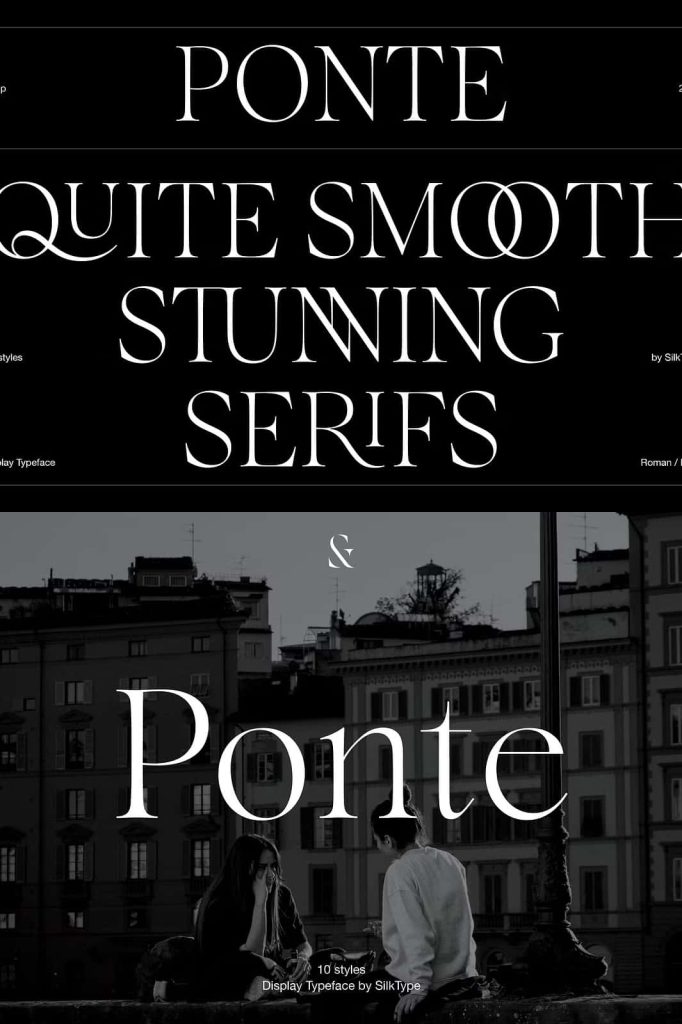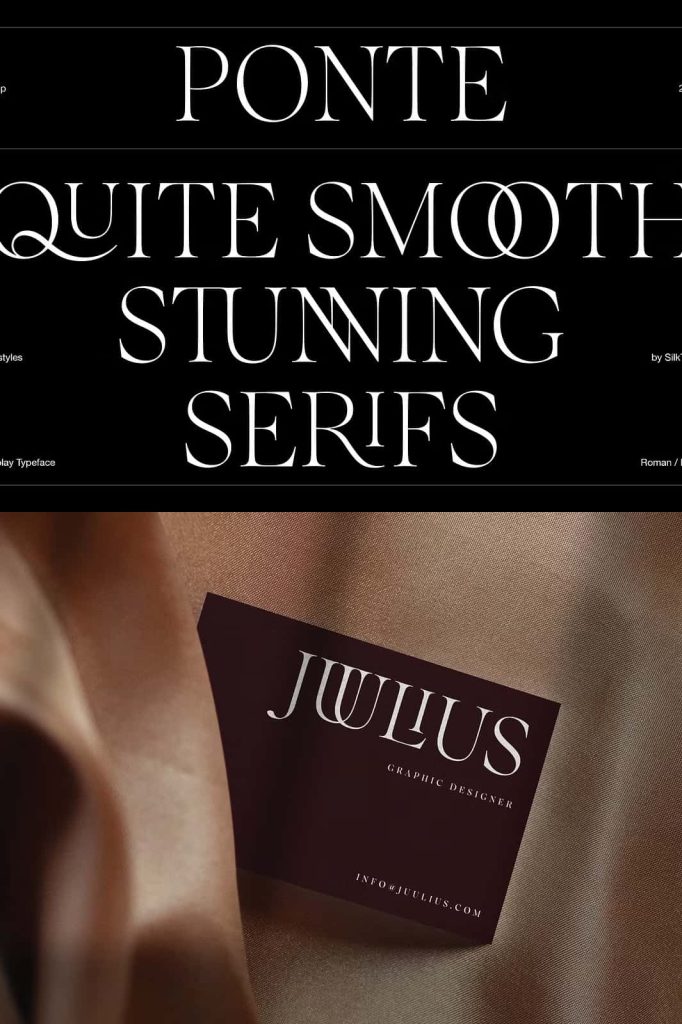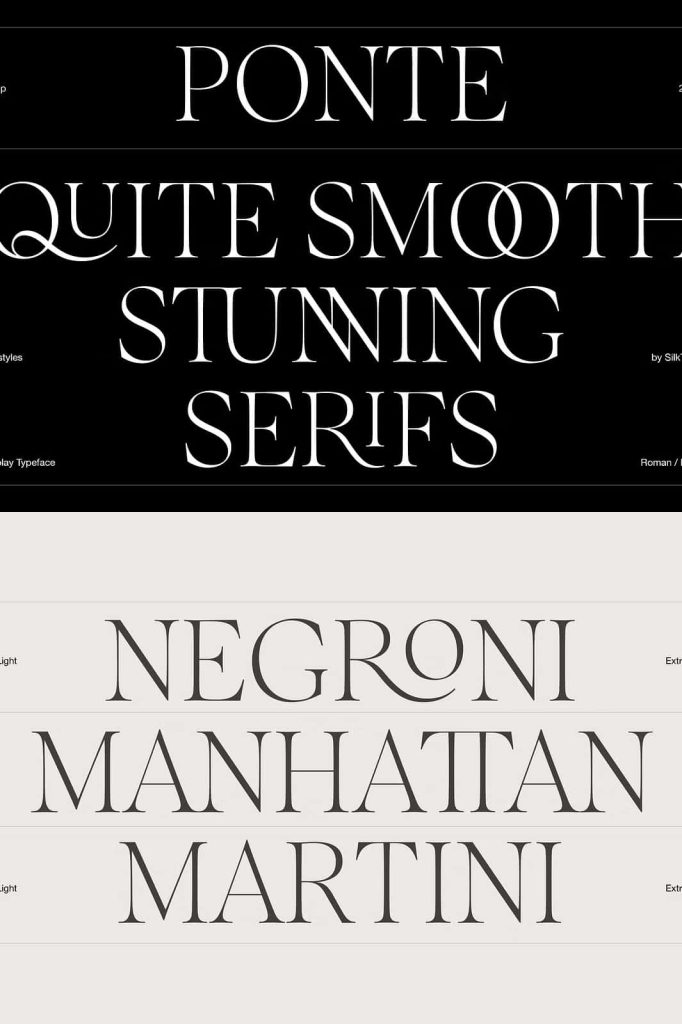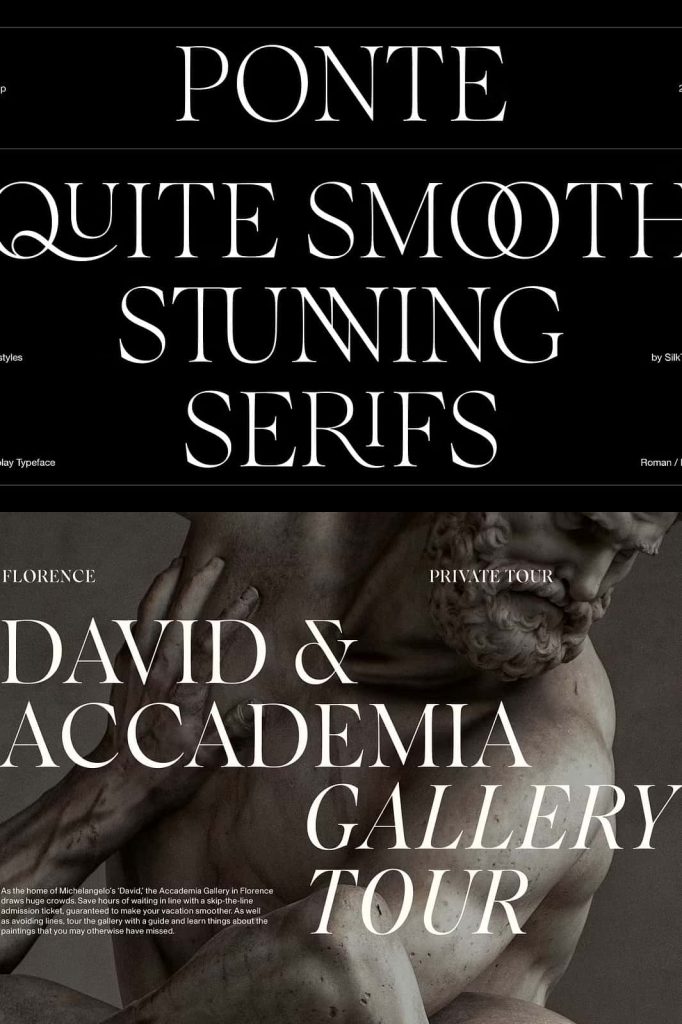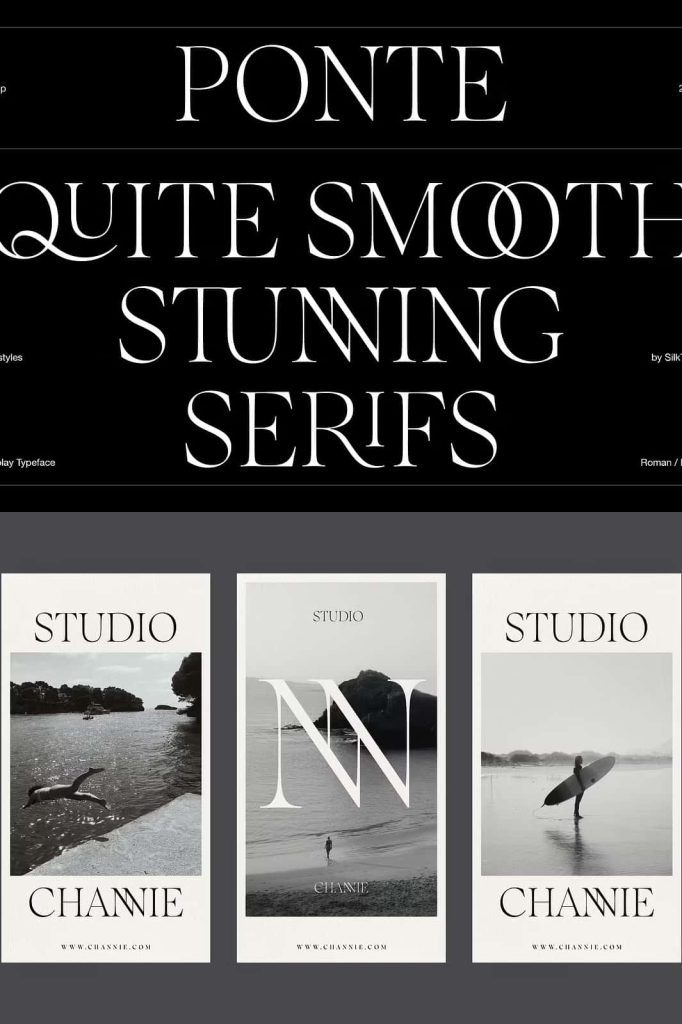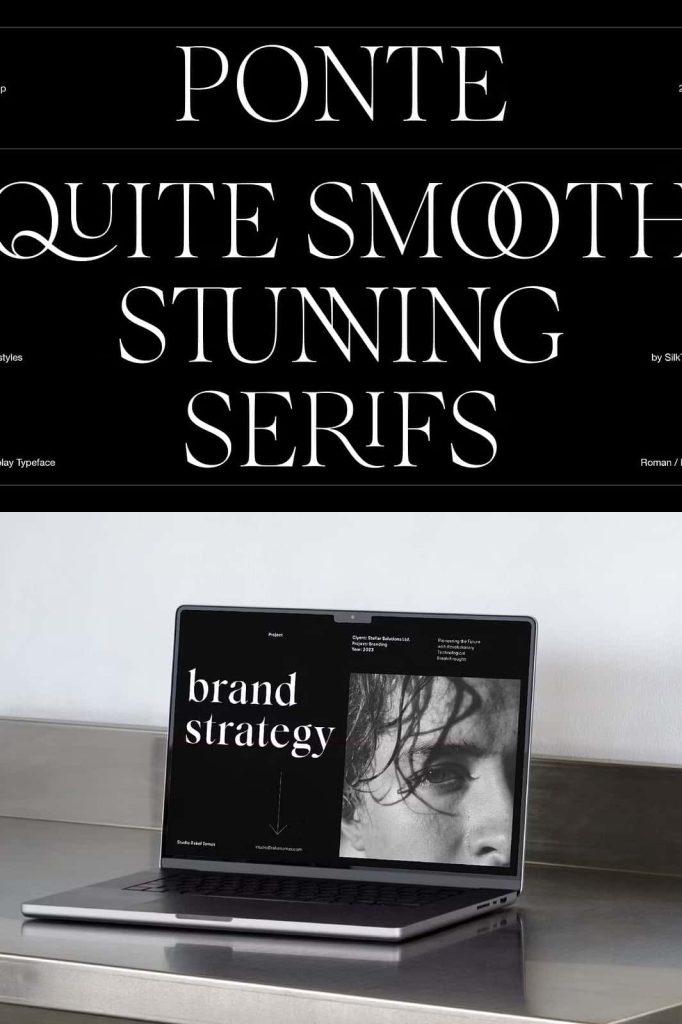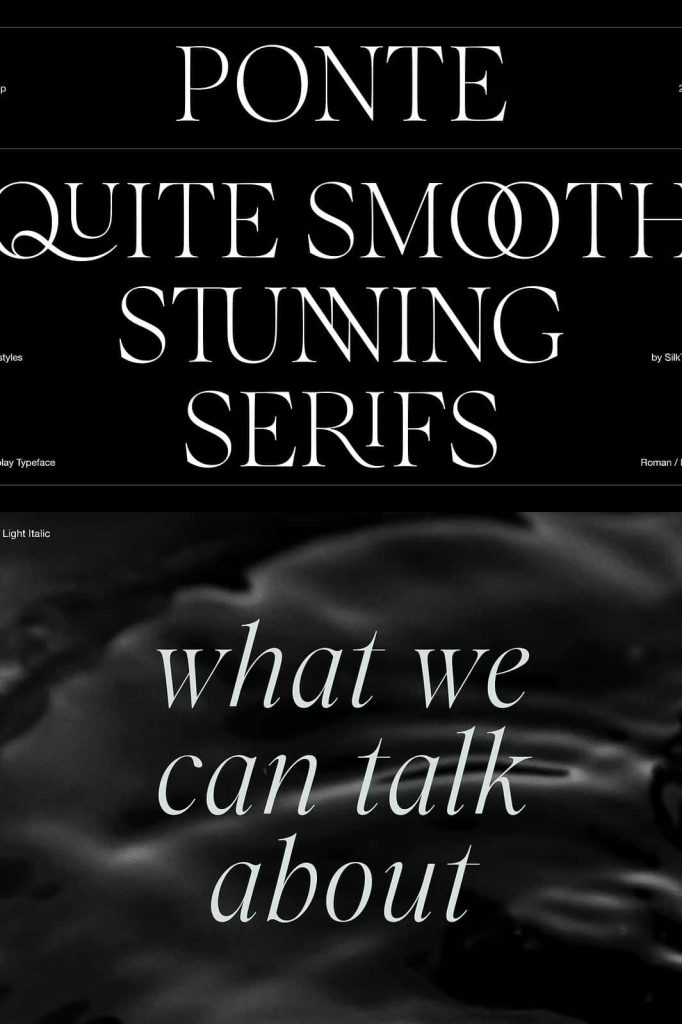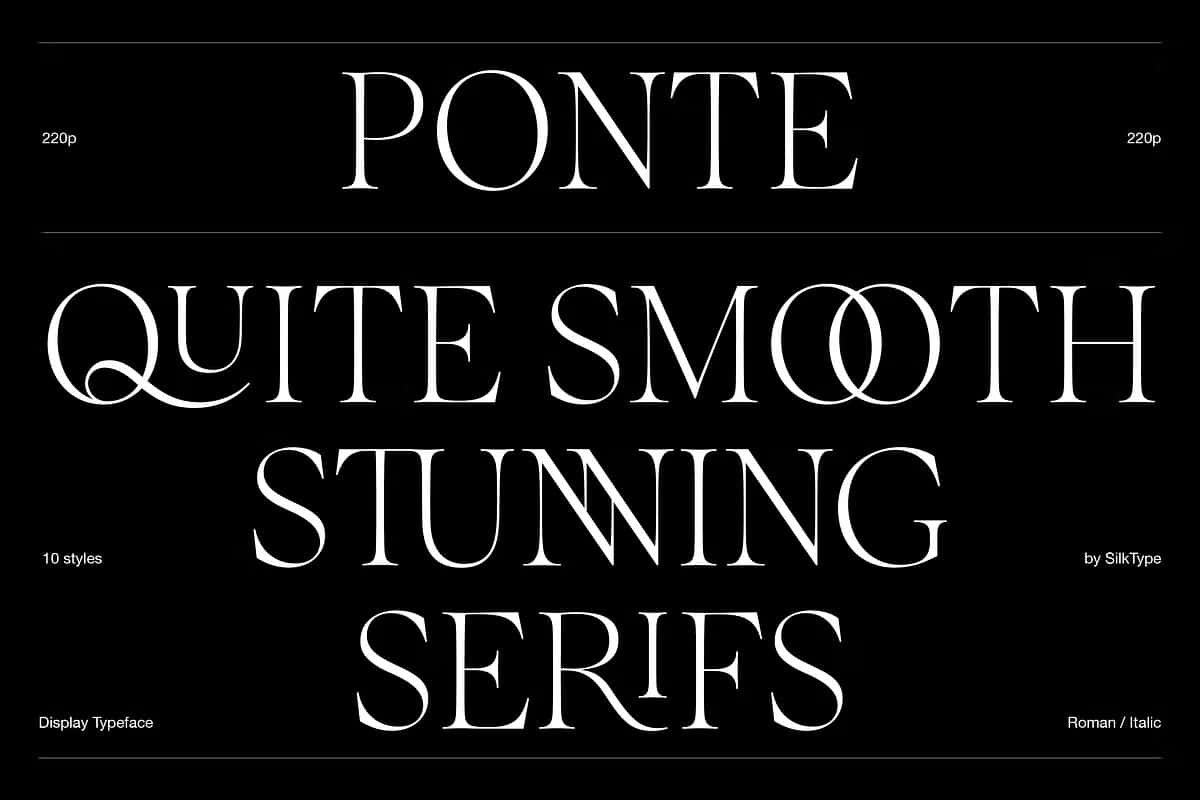
Ponte – 10 font family
Ponte: A High-Contrast Display Typeface Built for Impactful Headlines
Ponte is a refined high-contrast display typeface created to command attention and elevate visual communication. Designed with smooth, elegant serifs and carefully balanced proportions, Ponte brings clarity, drama, and sophistication to headline-driven layouts. This typeface is engineered to perform at display sizes, where contrast, detail, and expressive typography matter most.
High Contrast That Creates Visual Authority
At the core of Ponte’s identity lies its striking contrast between thick and thin strokes. This contrast delivers immediate visual impact, allowing headlines to stand out with confidence and precision. The dramatic stroke transitions add rhythm and movement to each word, guiding the reader’s eye and reinforcing hierarchy within the layout.
Despite its bold contrast, Ponte maintains excellent readability. The smooth serifs and carefully shaped counters prevent the letterforms from feeling sharp or overwhelming. This balance ensures that the typeface feels elegant rather than aggressive, making it suitable for sophisticated design applications.
Smooth Serifs with Refined Craftsmanship
Ponte’s serifs are designed with smooth curves and controlled details that soften the overall appearance. These serifs enhance the typeface’s elegance while supporting clarity at large sizes. The refined construction reflects a strong attention to typographic craftsmanship, ensuring that every character feels intentional and polished.
This smooth serif approach allows Ponte to bridge classic and contemporary design sensibilities. Designers can achieve a timeless look while still delivering a modern and expressive typographic voice.
Ten Styles Across Five Versatile Weights
Ponte offers ten total styles, combining roman and italic versions across five distinct weights. The range spans from extra light to bold, giving designers extensive control over emphasis, hierarchy, and tone. Each weight maintains consistent proportions and character, allowing seamless transitions within a single project.
The lighter weights bring elegance and restraint, ideal for refined headlines and editorial accents. The heavier weights deliver strength and authority, making them perfect for bold titles and statements. This range ensures that Ponte adapts easily to a variety of creative directions.
Roman and Italic Styles for Expressive Layouts
Both roman and italic styles are included across all five weights, expanding the expressive potential of the typeface. The italics introduce fluidity and motion, adding emphasis and contrast without breaking visual cohesion. These italics work beautifully for quotes, highlights, and editorial storytelling.
The harmonious relationship between roman and italic styles ensures consistency throughout complex layouts, supporting both readability and creative expression.
Over 80 Decorative Ligatures for Unique Typography
Ponte includes more than 80 decorative ligatures, offering designers the ability to create distinctive and custom-looking typography. These ligatures enhance letter connections and introduce subtle ornamental details that elevate the overall aesthetic. When activated, they add personality and sophistication without overwhelming the design.
The ligatures are especially effective in display text, logos, and headlines where typographic detail makes a strong impression. They help reduce repetition and create a more fluid and engaging reading experience.
Designed for Sophisticated Design Applications
Editorial Design and Headlines
Ponte excels in editorial environments where headlines must communicate authority and style. Its high contrast and elegant structure make it ideal for magazines, journals, and digital publications that value strong typographic identity. Designers can rely on Ponte to anchor layouts and enhance storytelling.
Branding, Logos, and Visual Identity
In branding and logo design, Ponte delivers a premium and confident tone. The smooth serifs and decorative ligatures help create memorable wordmarks and brand signatures. This makes the typeface suitable for fashion, luxury products, cultural institutions, and creative brands that want to project sophistication.
Posters, Campaigns, and Promotional Design
For posters and promotional materials, Ponte provides strong visual presence and flexibility. Its range of weights and styles allows designers to build dynamic compositions while maintaining a cohesive look. Headlines feel intentional, bold, and refined across both print and digital formats.
Versatile Performance Across Print and Digital Media
Ponte performs reliably across print and digital platforms. Its precise construction ensures clean rendering at large sizes, while the strong contrast preserves clarity on screens. Designers can confidently use Ponte in websites, social media graphics, packaging, and print materials.
Why Choose Ponte for Your Typography System
Choosing Ponte means selecting a display typeface that combines elegance, flexibility, and expressive power. Its high contrast, smooth serifs, extensive ligatures, and wide range of styles provide designers with the tools needed to create sophisticated and memorable designs.
If you are looking for a high-contrast display typeface that delivers impactful headlines and refined visual identity, Ponte offers a complete and versatile solution for modern, type-focused design projects.